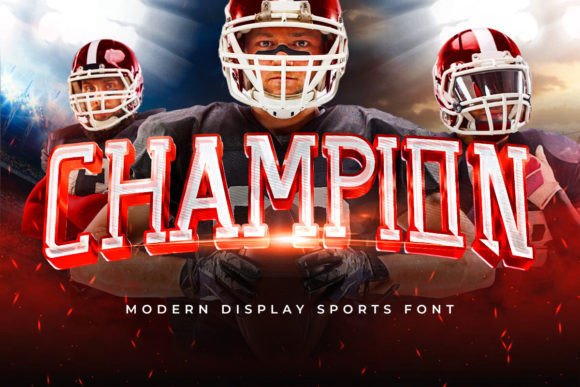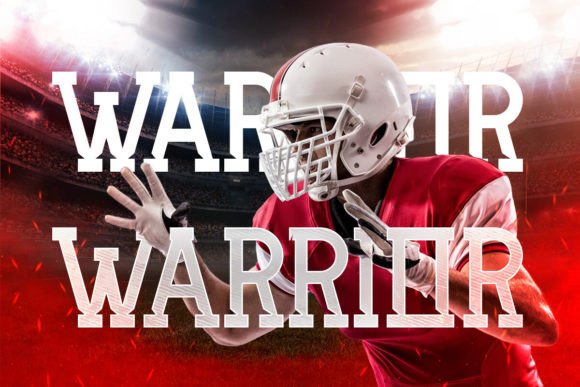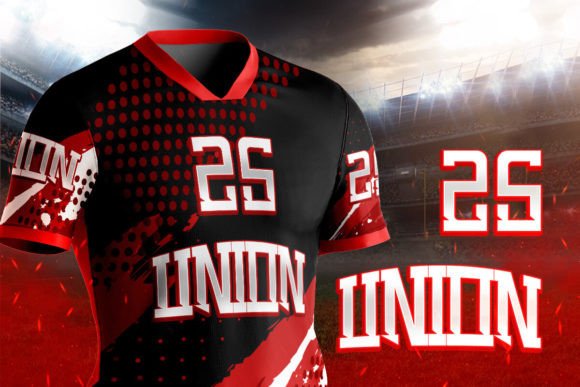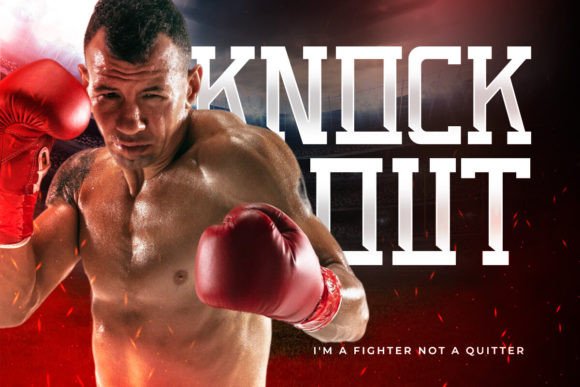
Champion Font: A Bold Display Font for Sports Logos & Branding
About the Champion Font
Let us introduce you to Champion Font, where timeless design meets modern craftsmanship. Champion is a powerful and commanding display font designed to capture the essence of athleticism and competitive spirit. Featuring strong, bold letterforms with a dynamic presence, this font is perfect for sports-related projects, including team logos, event posters, and sports apparel. Its impactful design and clear readability make it ideal for headlines, banners, and branding that need to make a bold statement. Elevate your sports designs with Champion, and convey a sense of strength and excellence in every project.
Champion Font Usage Examples
Champion Font Example